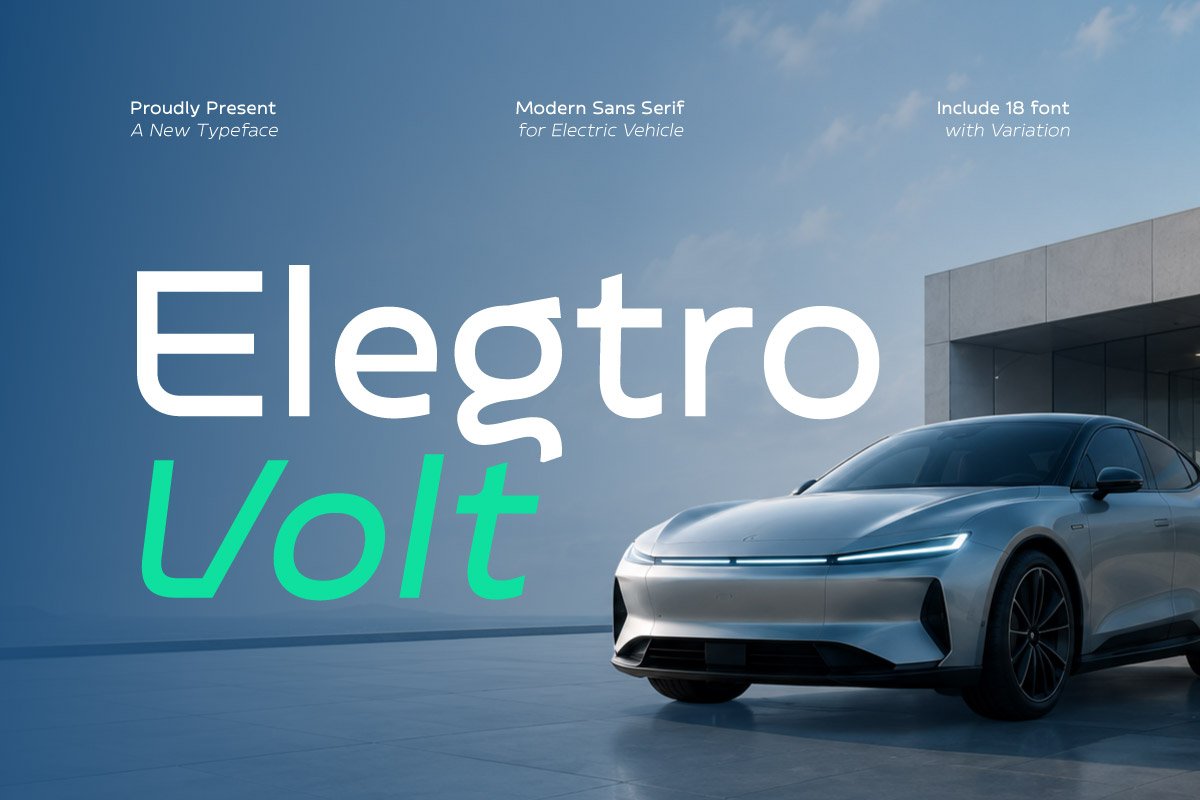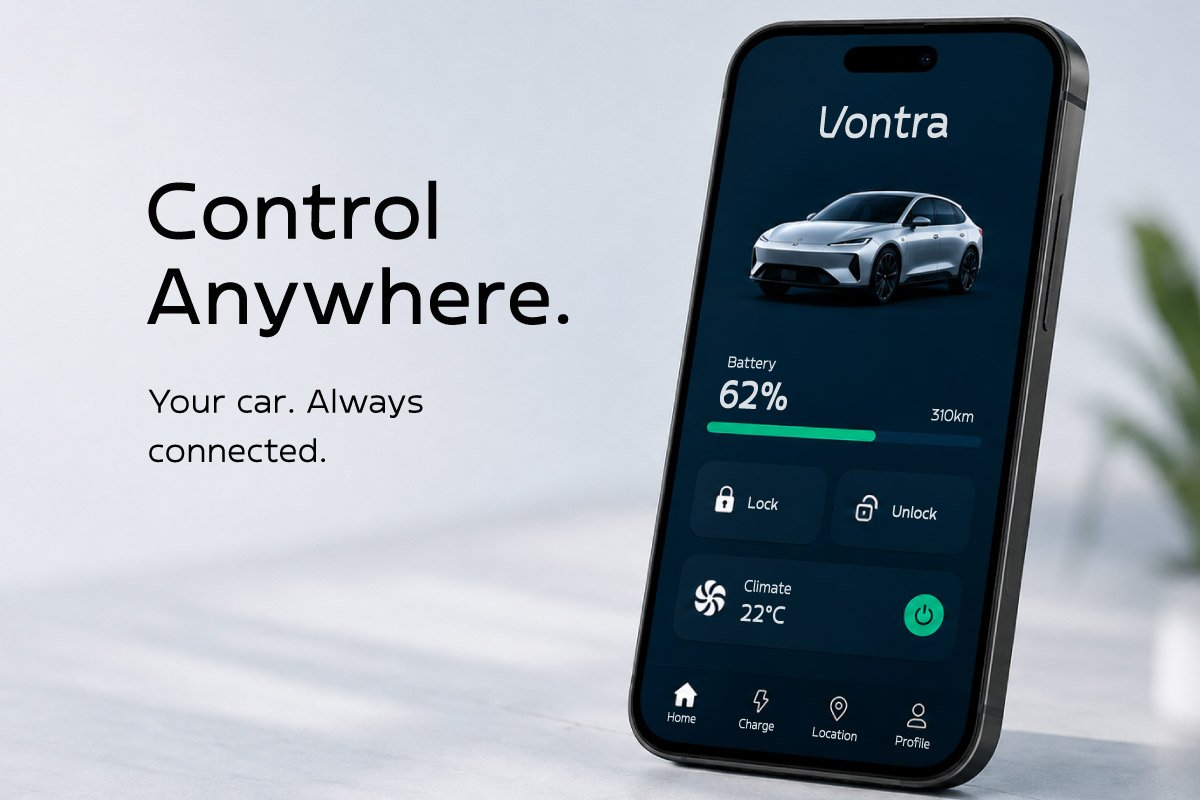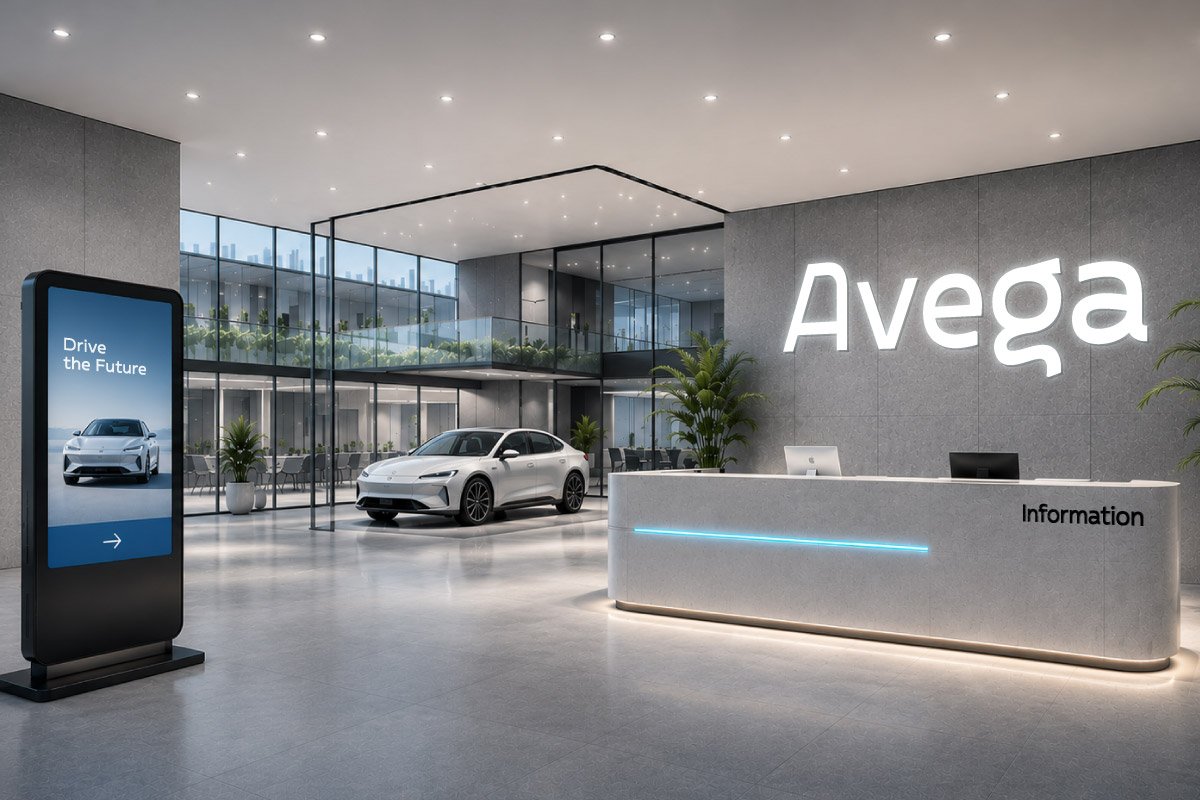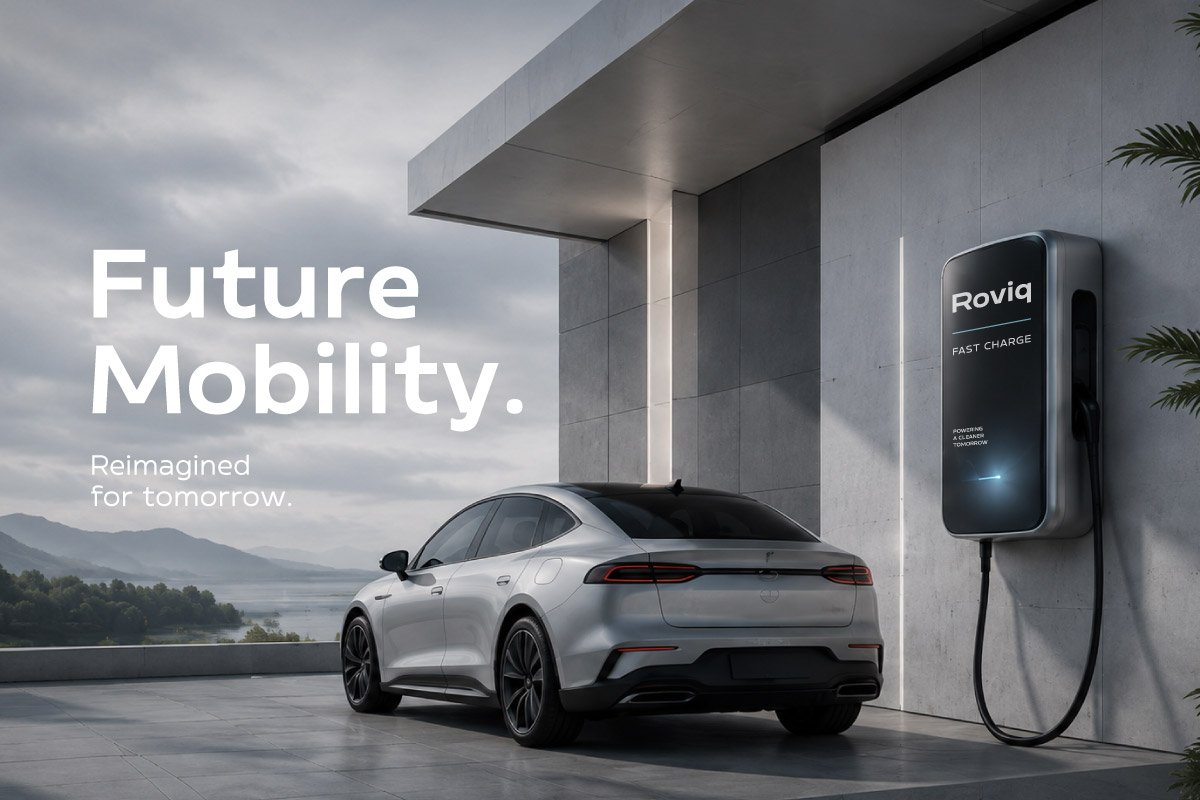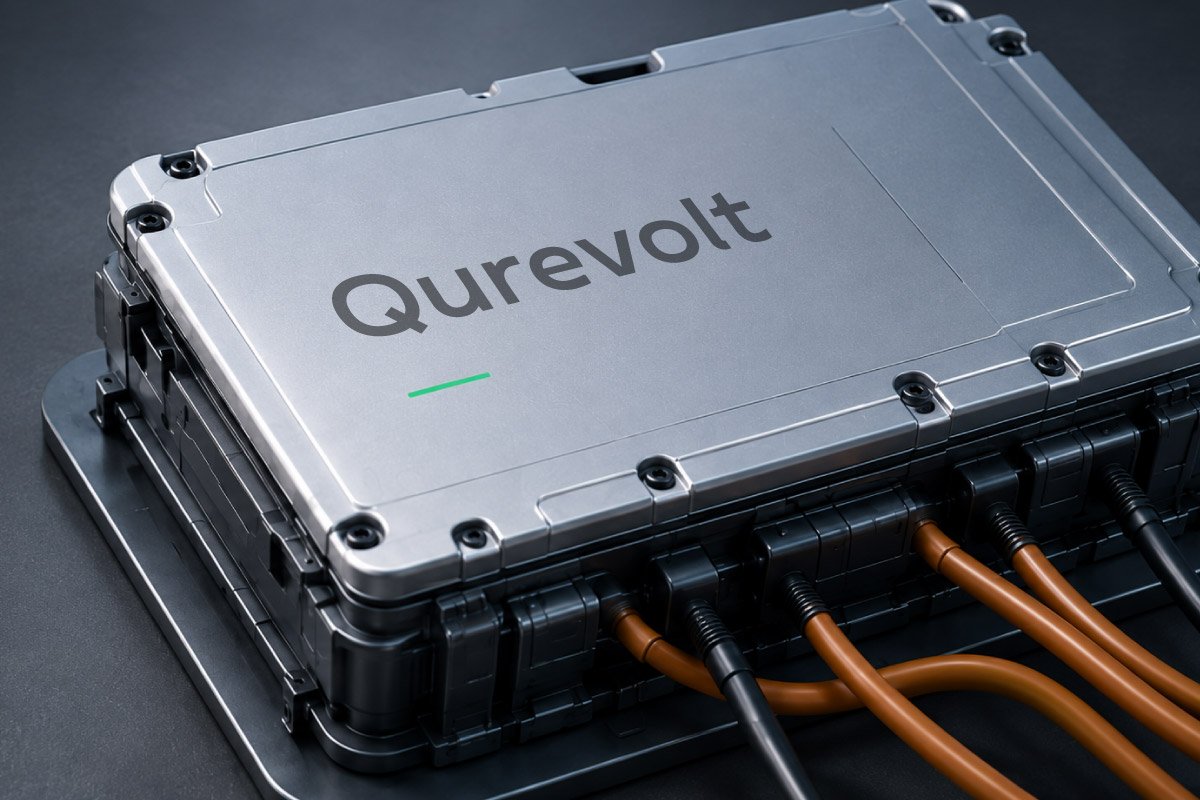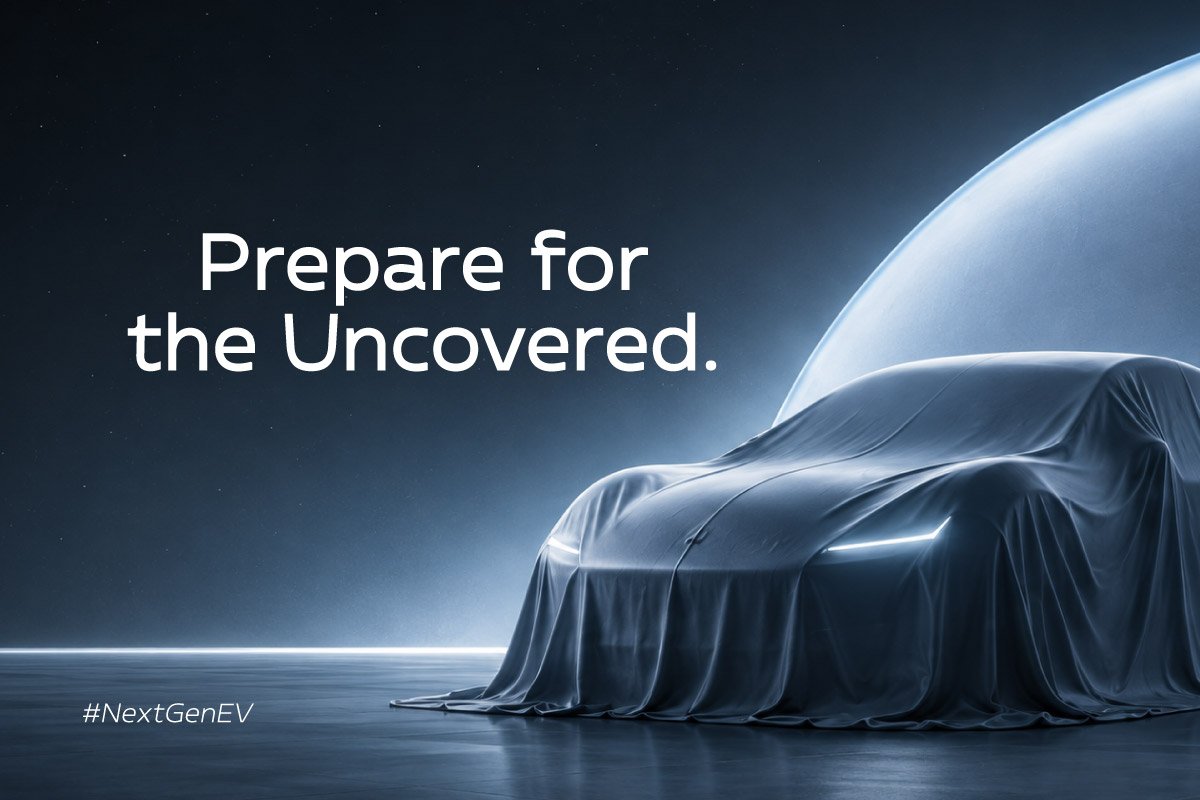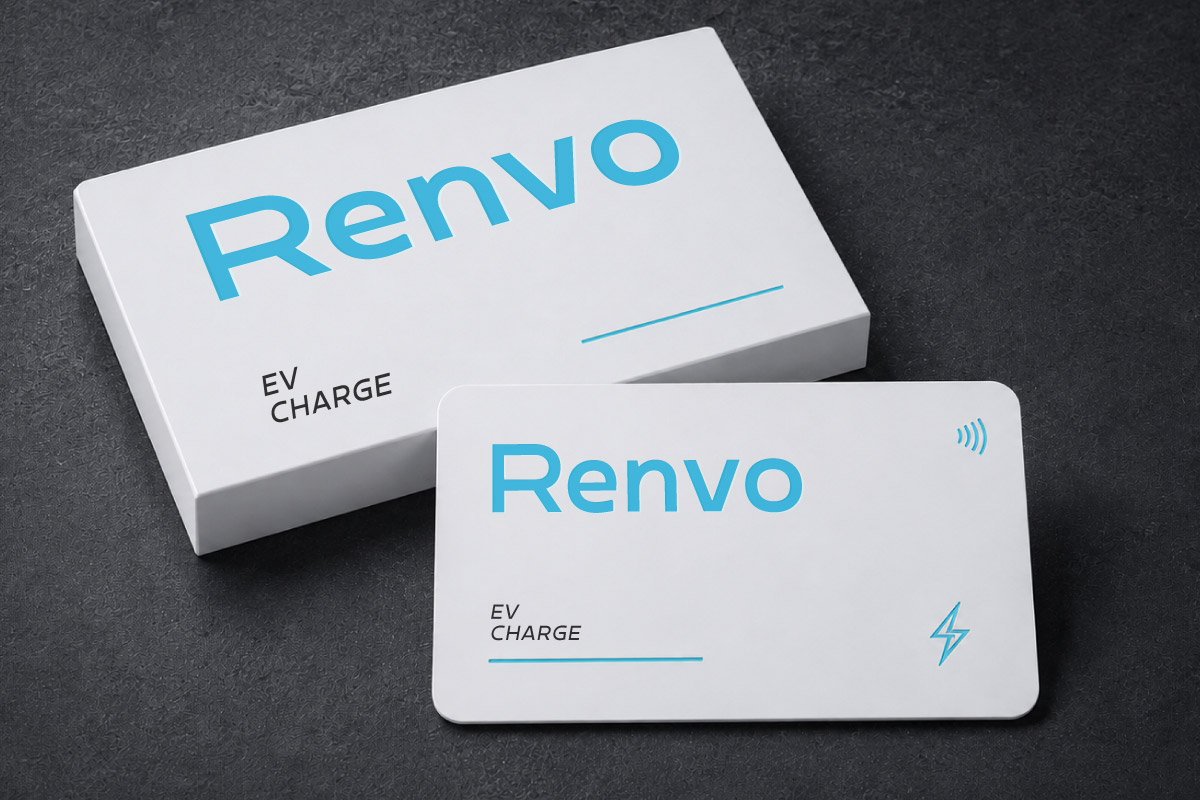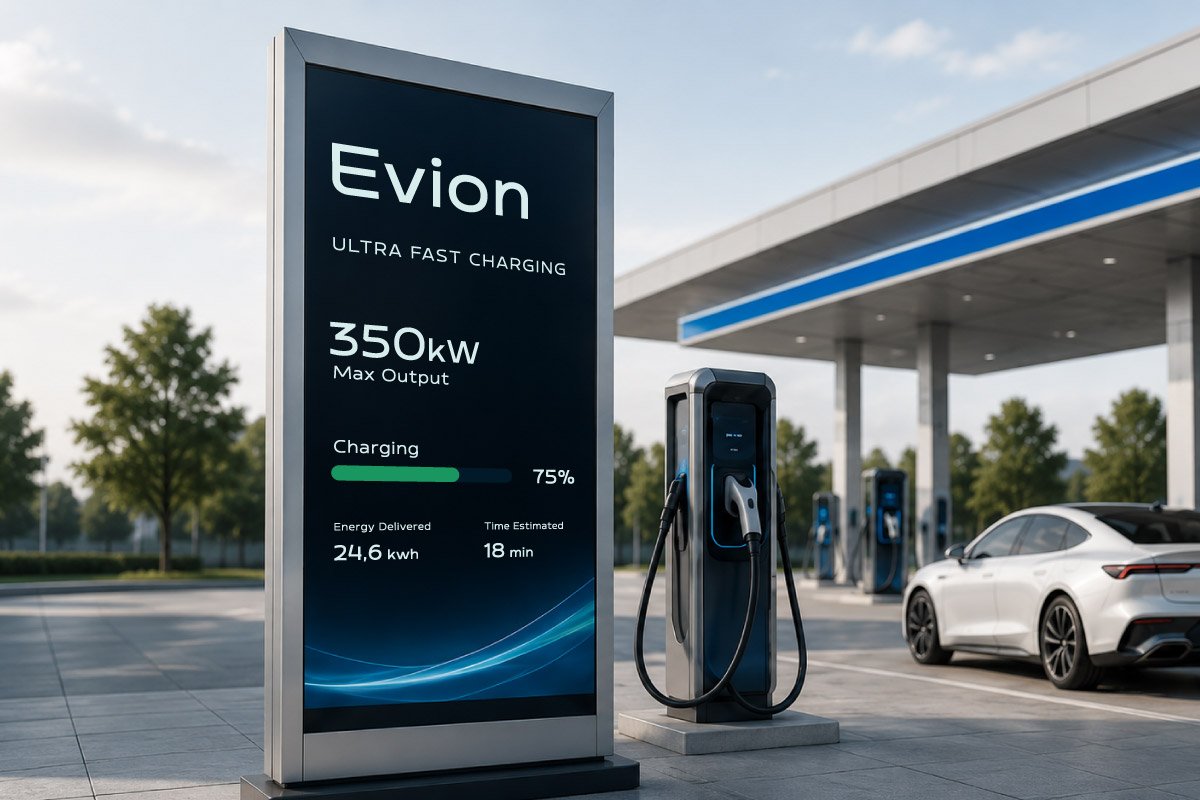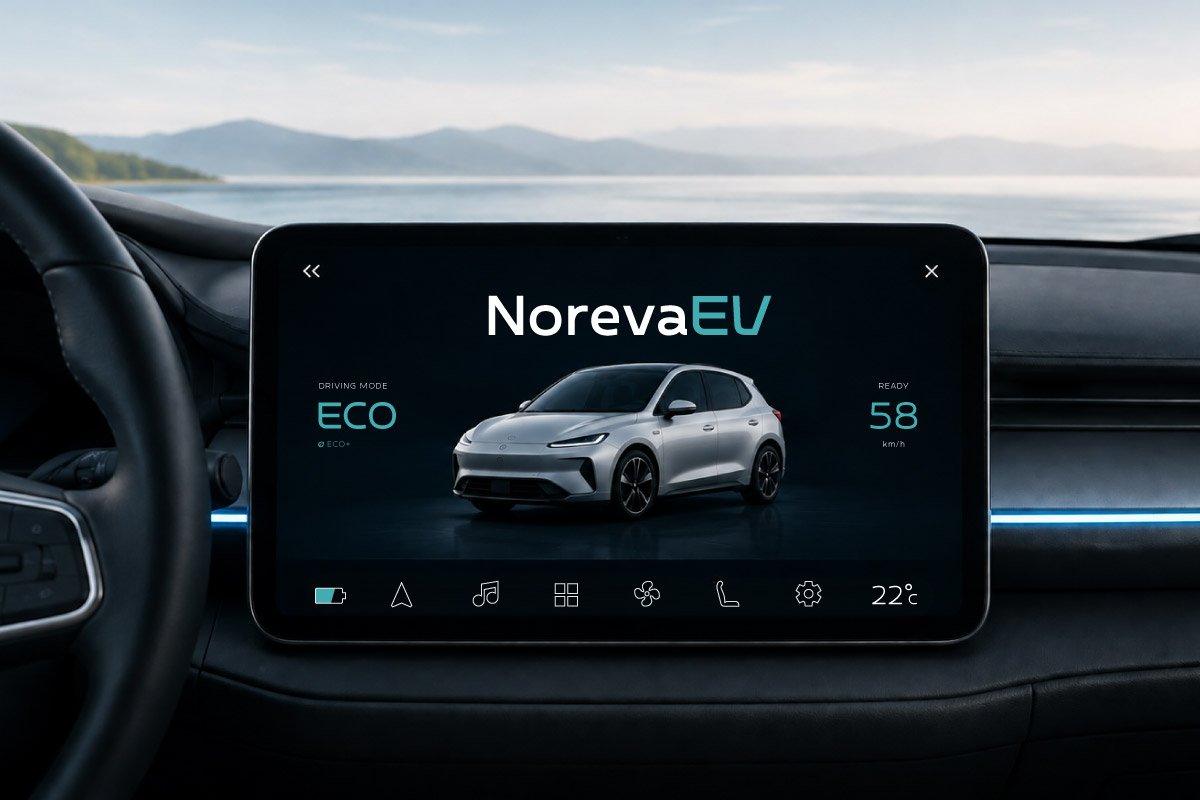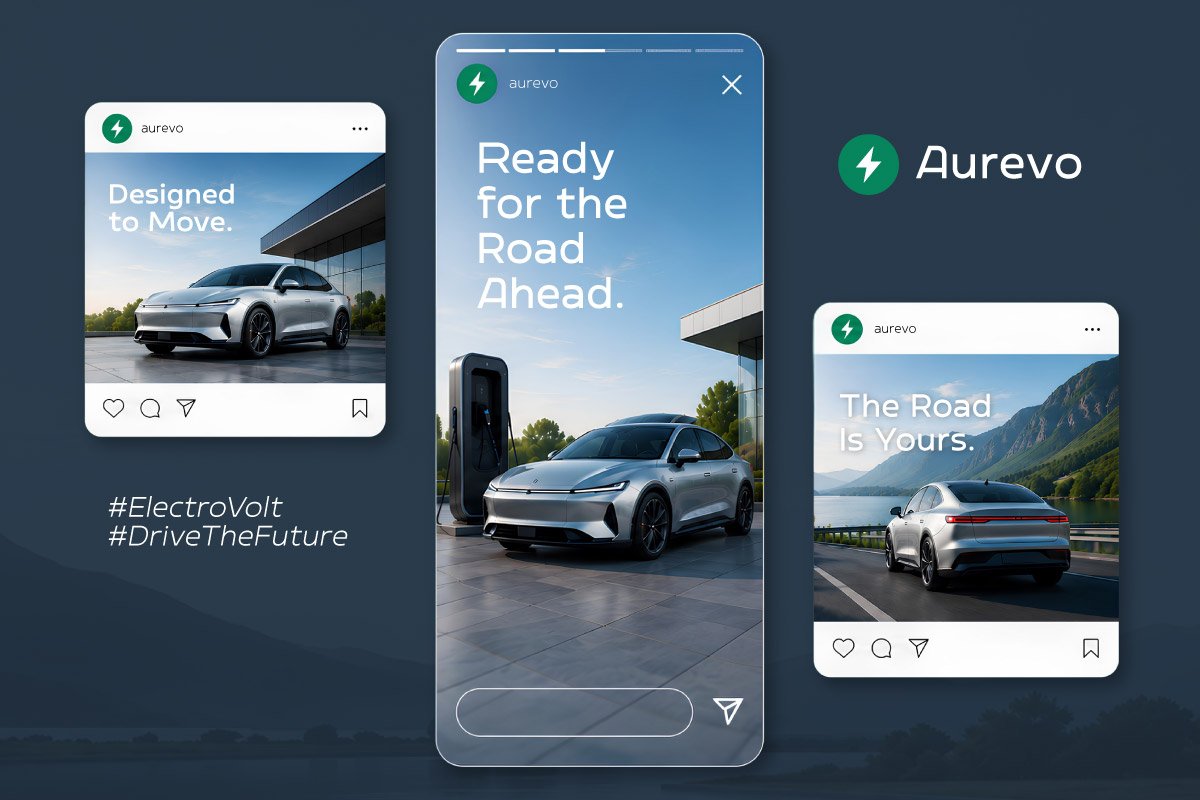
- Elegtro Volt – Modern Sans for EV
Elegtro Volt – Modern Sans for EV is a modern sans serif font designed to bring a futuristic, clean, technological, and premium feel to electric vehicle branding and automotive technology projects. Its geometric character and contemporary letterforms make it ideal for headlines, logos, campaigns, advertising, and visual communication that requires a strong technology-driven identity.
This font is perfect for EV manufacturers, battery technology startups, autonomous driving software, charging infrastructure, electric mobility, automotive technology, and renewable energy brands. Elegtro Volt works beautifully for vehicle branding, EV product launches, charging station campaigns, automotive websites, mobile apps, social media content, packaging, presentations, and digital advertising.
With its versatile and modern character, Elegtro Volt creates a visual identity that feels innovative, efficient, sustainable, and future-ready. It is a strong choice for automotive designers, branding agencies, technology startups, and creative teams looking for a modern sans serif display font for next-generation EV brands.